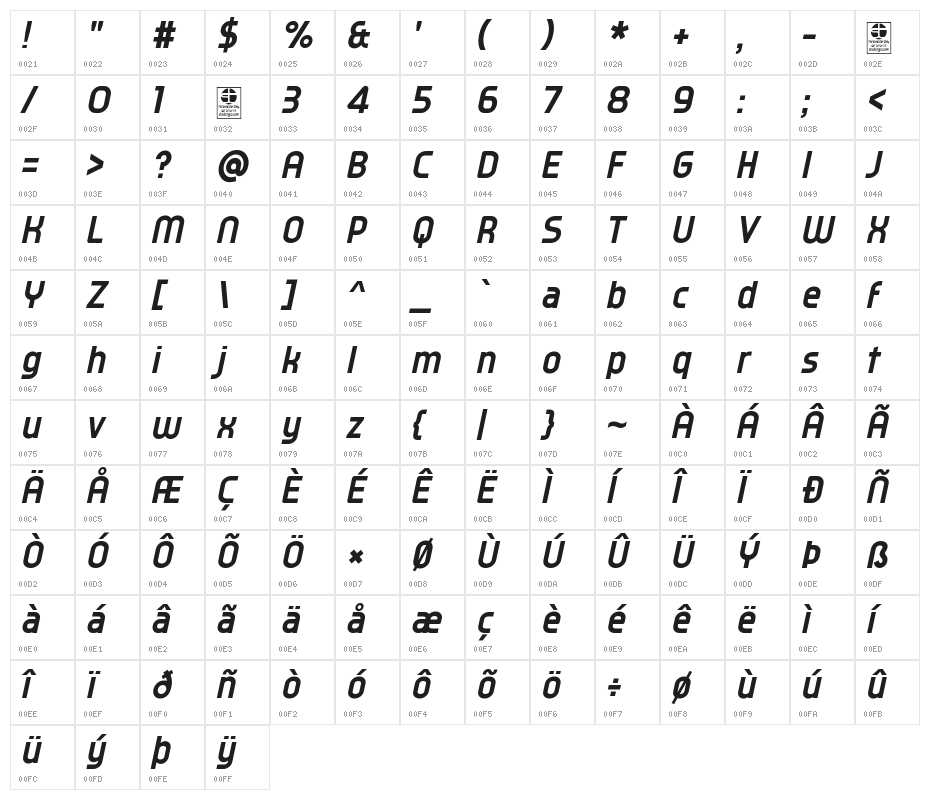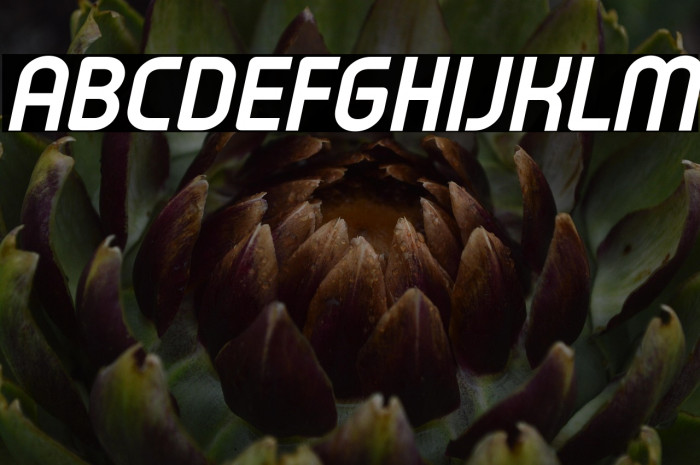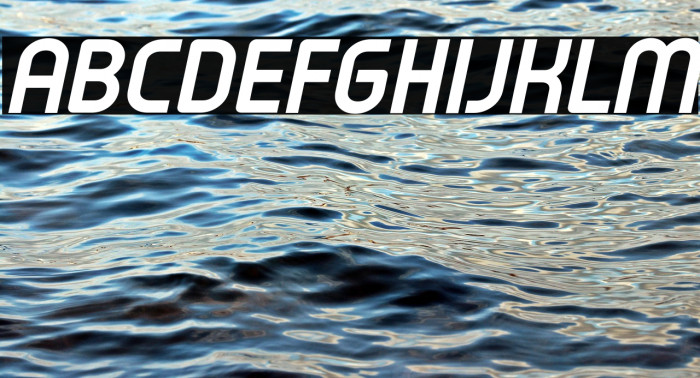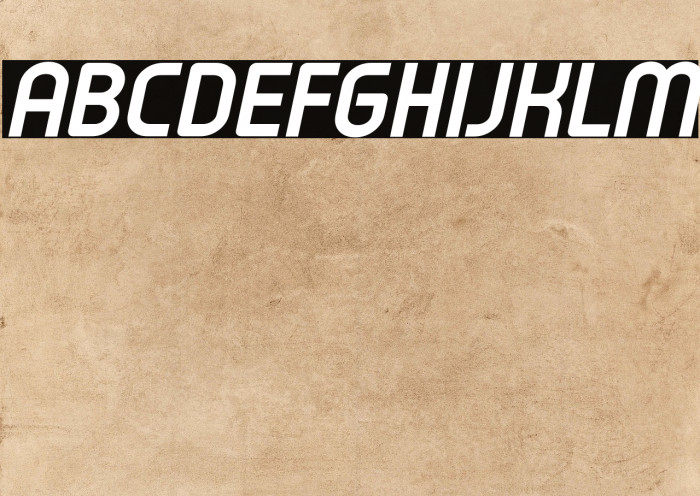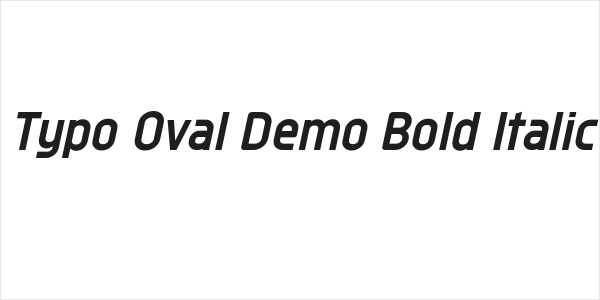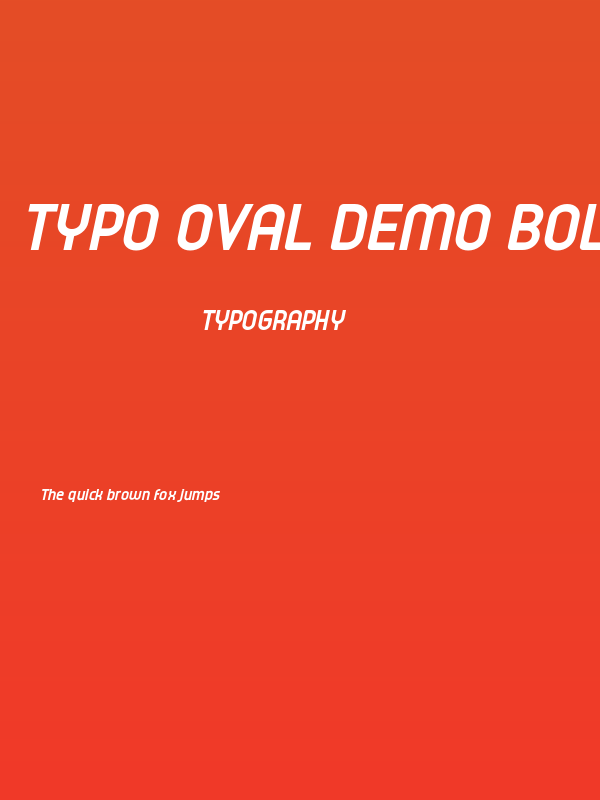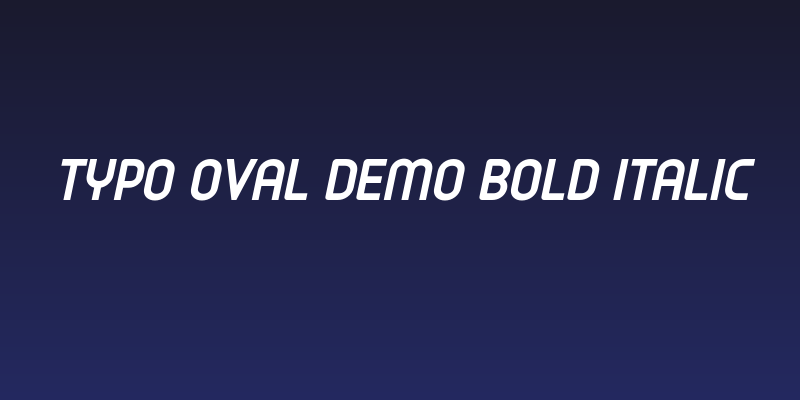
Typo Oval Demo Bold Italic Font
Typo Oval Demo Bold Italic Description
This font features a modern and sleek design with a bold and italicized style. The characters are slightly condensed, giving it a compact appearance that is both stylish and functional. The strokes are consistent in weight, providing a uniform look across all characters. The font maintains a clean and professional aesthetic, making it suitable for a variety of applications. The uppercase and lowercase letters are well-proportioned, and the numerals are clear and easy to read. Special characters are included, enhancing its versatility. Overall, this font exudes a contemporary vibe, perfect for projects that require a bold statement.